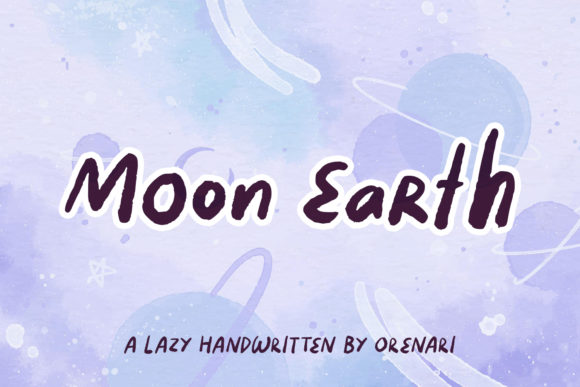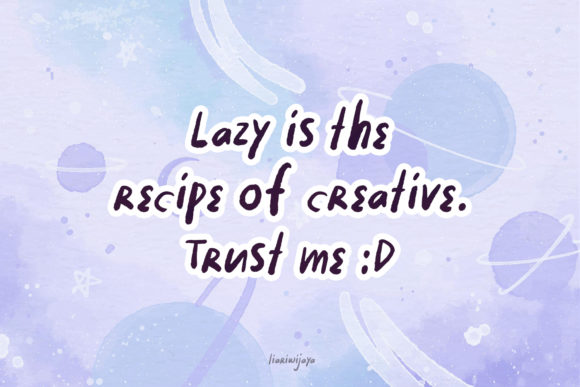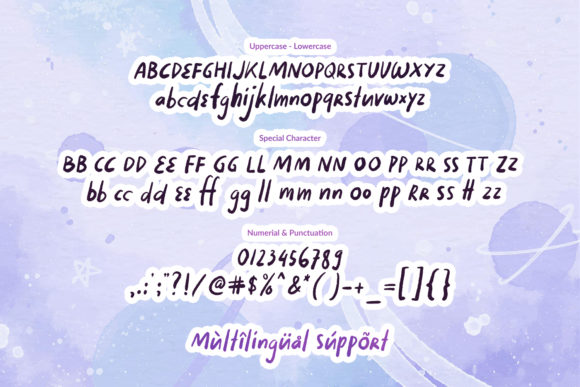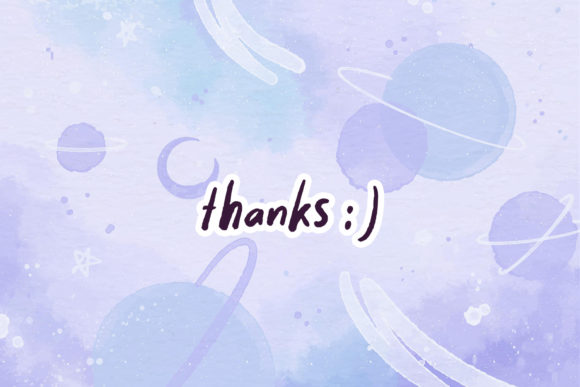
About Moon Earth Font
Moon Earth is a simple and organic brushed handwritten font. No matter the topic, this font will be an incredibly asset to your fonts’ library, as it has the potential to elevate any creation.